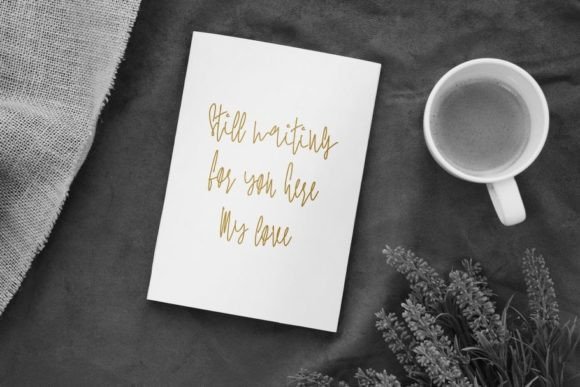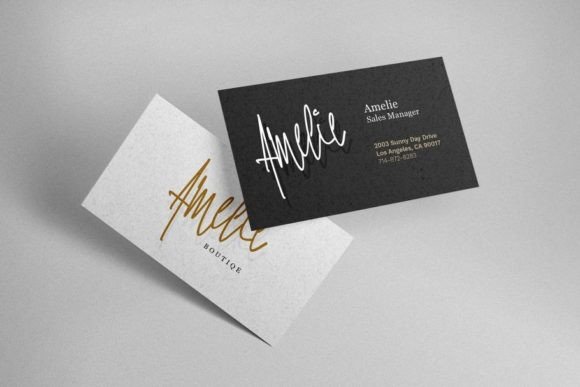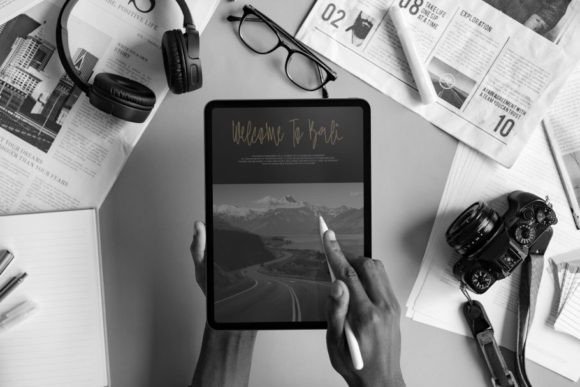
Introduction to Beauty of Amelie Font
As a designer, there’s nothing quite like the thrill of bringing a creative project to life. You spend hours brainstorming, sketching, and perfecting every detail – and then, it all comes together in a beautiful, cohesive design. But, let’s face it: sometimes, the perfect font can be the missing piece that takes your design from good to great.
Enter the Beauty of Amelie Font – a stunning, handwritten font that’s sure to add a touch of romance and elegance to your next project. With its natural script and high-quality design, this font is a must-have for any designer looking to add a little extra magic to their work.
Key Features of Beauty of Amelie Font
- Unique, elegant design perfect for creative projects and design resources.
- Perfect for use in a variety of creative projects, including logos, branding materials, and editorial content.
Honest Review: Beauty of Amelie Font
As a designer, I’m always on the lookout for high-quality fonts to enhance my creative projects. Recently, I stumbled upon the Beauty of Amelie Font, and I’m excited to share my honest review with you.
Here are the things that work well:
- ✨ High-quality design: The Beauty of Amelie Font boasts elegant, cursive script that’s perfect for creative projects, especially those that require a touch of sophistication.
- ✨ Versatility: The Beauty of Amelie Font is suitable for a wide range of projects, from wedding invitations to branding materials.
- ⚠️ Limited font styles: While the font is elegant, it’s available in only a few styles, which might limit its versatility in certain projects.
- ⚠️ Not suitable for bold text: Due to its cursive nature, the Beauty of Amelie Font might not be the best choice for projects that require bold, headline text.
Overall, I’m impressed with the Beauty of Amelie Font. Its high-quality design and free download make it an excellent resource for designers. While it has some limitations, it’s still a great addition to any design arsenal.
Beauty of Amelie Font
The Beauty of Amelie Font is a beautiful, elegant, and versatile font perfect for any creative project. With its transparent background and high quality design, it’s a great addition to any design resource.
The Beauty of Amelie Font is perfect for a variety of projects, including:
- Social media graphics and advertisements
To get the most out of the Beauty of Amelie Font, be sure to:
- Use it in conjunction with other high-quality design elements
- Combine it with transparent backgrounds for a sleek look
Alternatives to Beauty of Amelie Font
1. Carolyna Pro
Carolyna Pro is a modern, elegant script font perfect for creative projects that require a touch of sophistication. It features a transparent background and is ideal for use in logo design, branding, and marketing materials. When to use: For high-end design projects that need a luxurious feel. How it compares: While Beauty of Amelie Font has a softer, more feminine look, Carolyna Pro is more refined and polished, making it suitable for a wider range of design applications.
Great Vibes is a beautiful, cursive script font that exudes a sense of joy and playfulness. It’s a great choice for creative projects that require a lighthearted, approachable tone. When to use: For projects that need a fun, energetic vibe. How it compares: While Beauty of Amelie Font has a more whimsical, hand-drawn feel, Great Vibes is more refined and elegant, making it suitable for a wider range of design applications.
Q: Does the Beauty of Amelie Font have a transparent background?
Q: What is the quality of the Beauty of Amelie Font?
The Beauty of Amelie Font is a high-quality font with clear and crisp characters. It’s designed to be legible and visually appealing, making it perfect for a wide range of design applications.